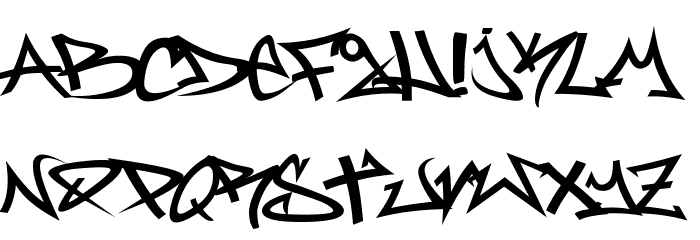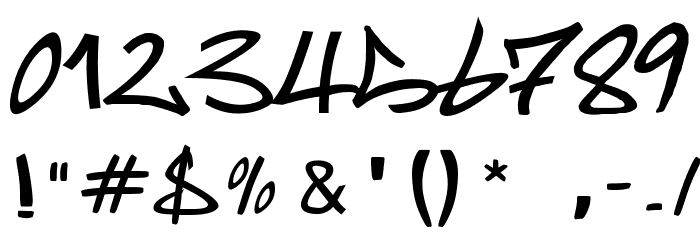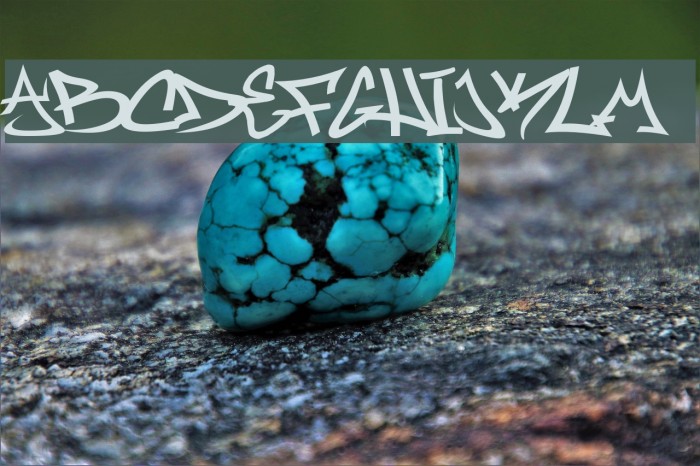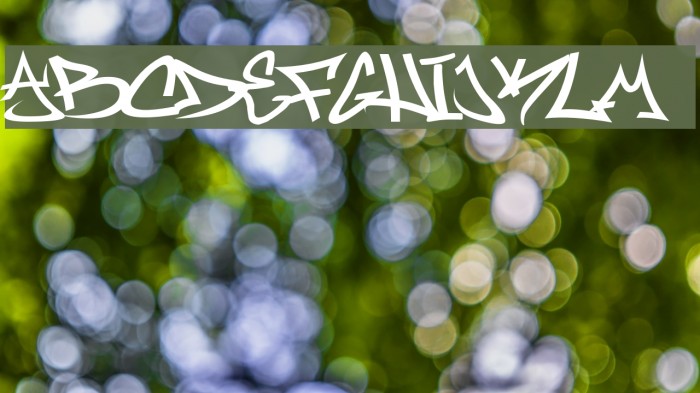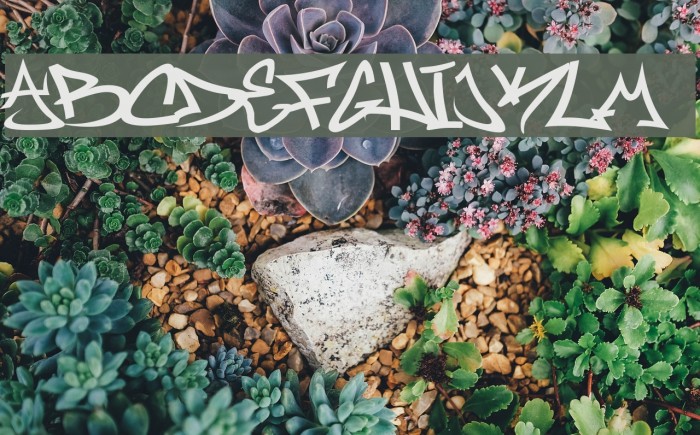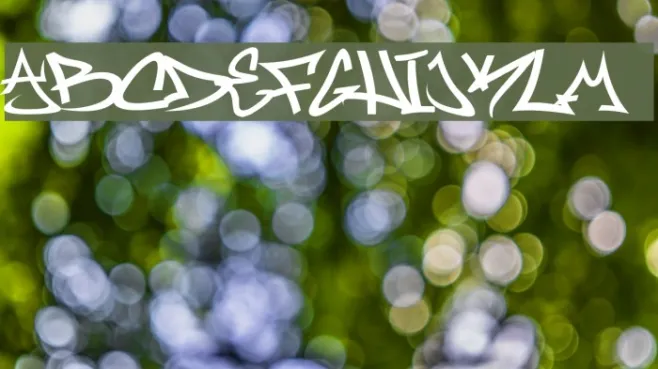
Rufa Font
This font features a bold, dynamic style reminiscent of graffiti art, with sharp angles and exaggerated curves that give it a sense of movement and energy. The uppercase and lowercase letters are designed with a consistent flow, maintaining a cohesive look across the alphabet. Numbers and special characters follow the same aesthetic, ensuring uniformity throughout. The strokes are thick and confident, contributing to a high contrast appearance that makes each character stand out. This font is ideal for projects that require a bold statement or an urban, edgy feel.
A bold, graffiti-inspired font with sharp angles and high contrast.
- Proposed Projects: Perfect for street art designs, urban-themed posters, music album covers, and edgy branding projects.
- Overall Style: Urban, Edgy, Graffiti